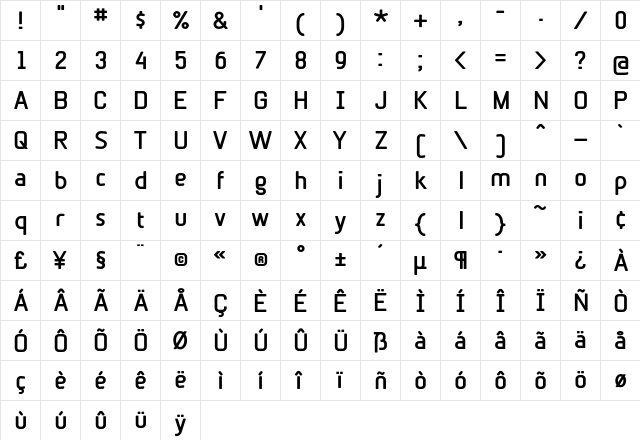
BetaSans Bold
Design Context for BetaSans Typeface
BetaSans is a composed and adaptable typeface that performs quietly and consistently across a wide range of design contexts. Its bold stroke weight gives it real presence on the page.
Pro Tip: Pair BetaSans with a font of contrasting weight or personality to build a more expressive typographic hierarchy.